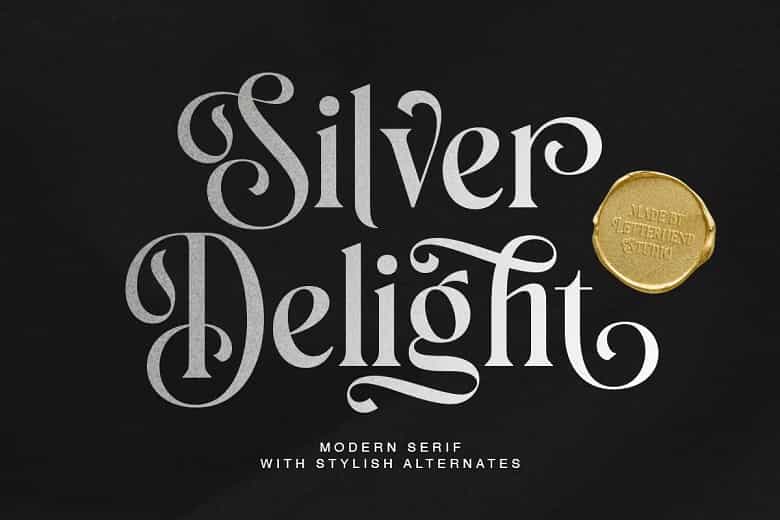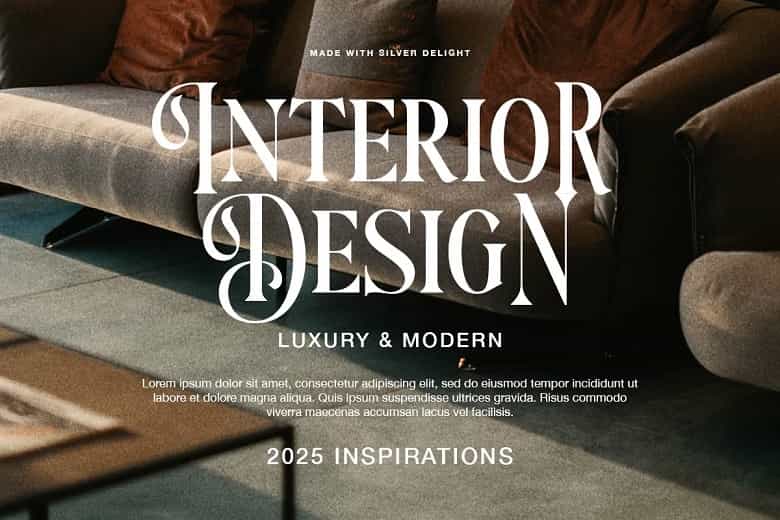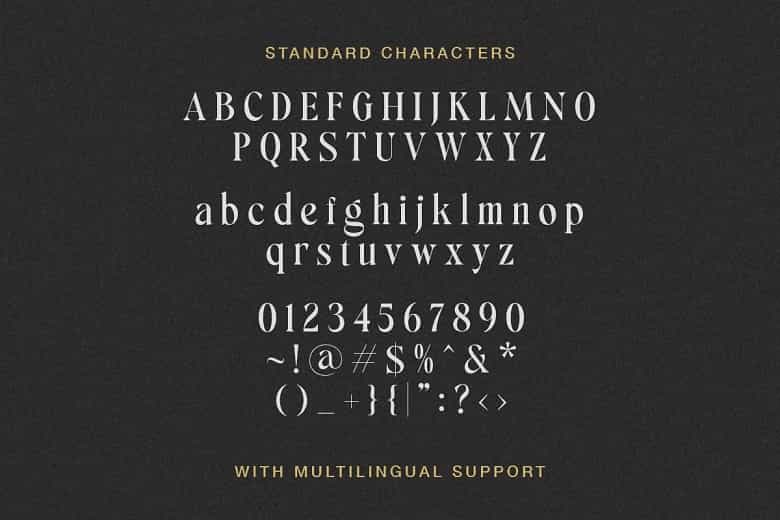
Silver Delight is a new serif font that has a modern taste to it. This typeface has wide range of stylish swash alternates that will help make lettering or logotype more attractive. It has the consiseness of a serif and the swash of swirls which makes this font quite unique!